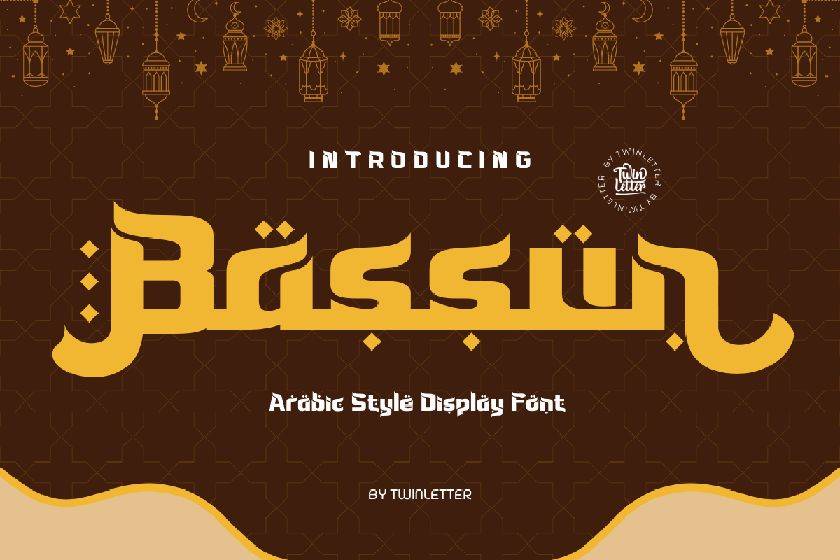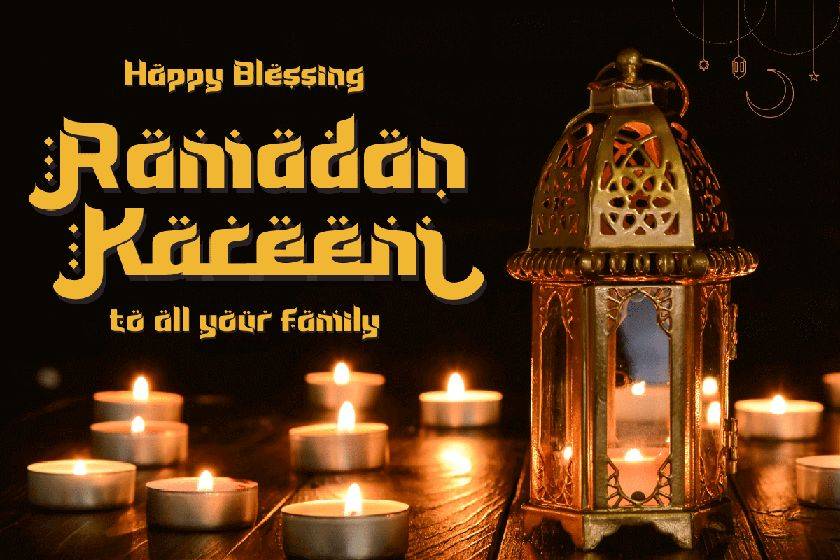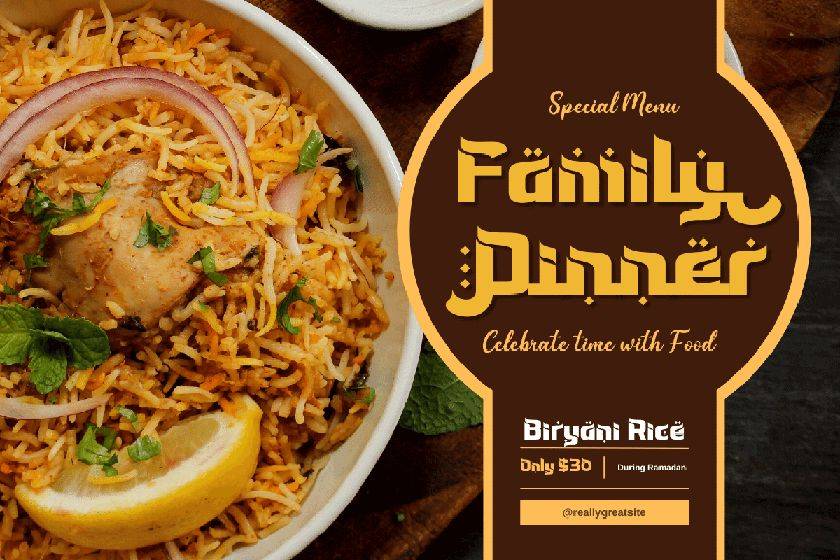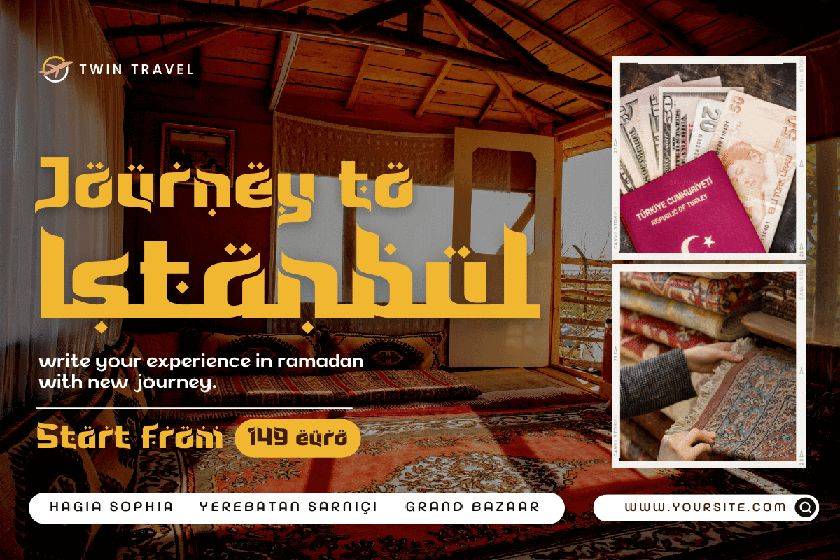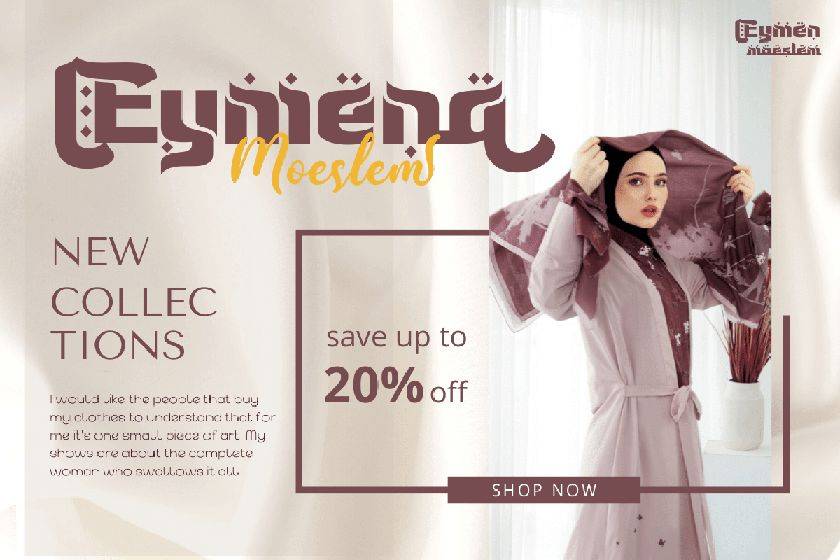
Bassun is a bold, geometric display font with a unique, stylized flair that blends modern and Gothic influences. Its sharp angles and thick, consistent strokes give it a strong presence, making it ideal for eye-catching headlines, branding, and packaging where a distinctive and edgy look is desired. This font works best in creative projects seeking a bold statement with a touch of artistic uniqueness.
Bassun Font